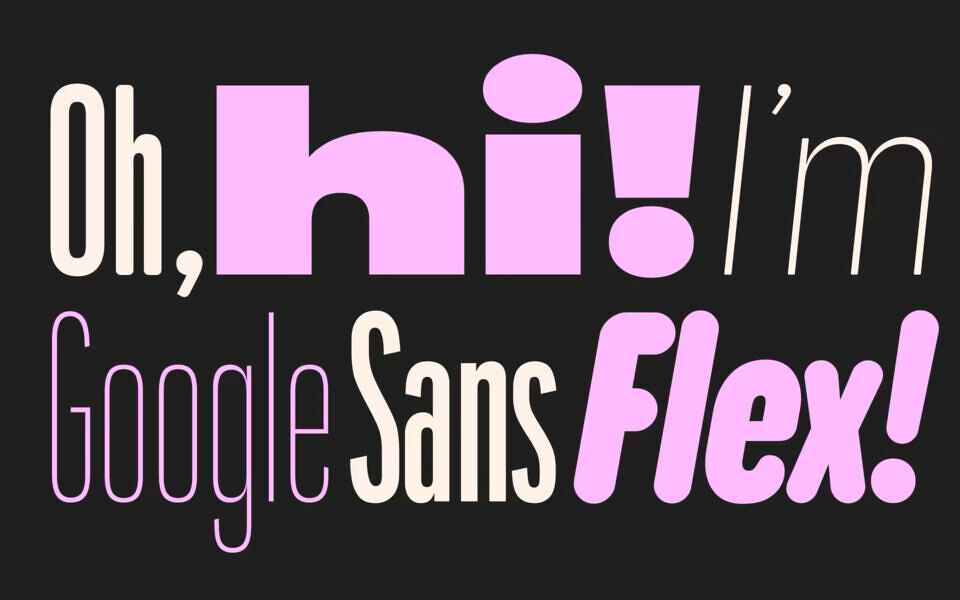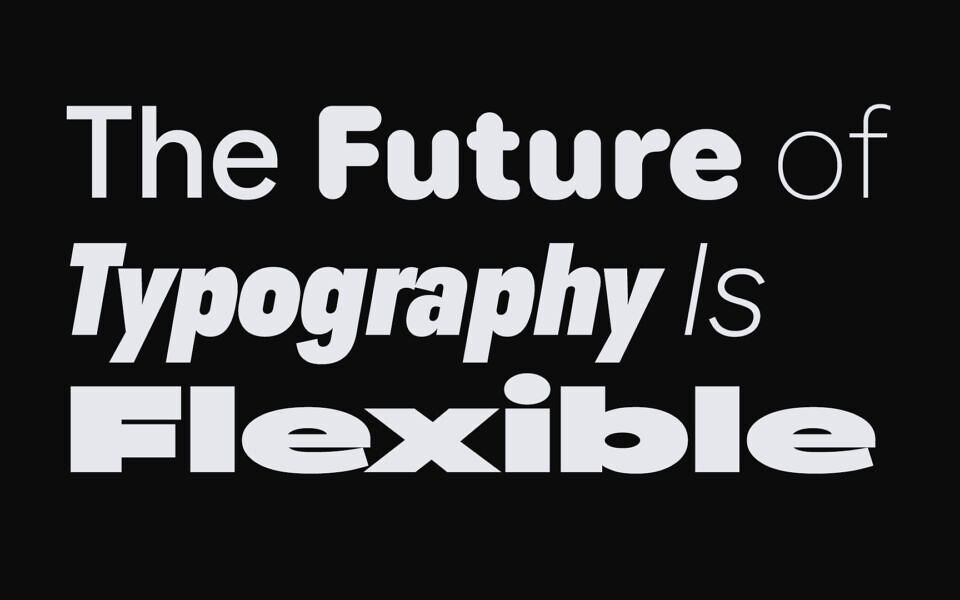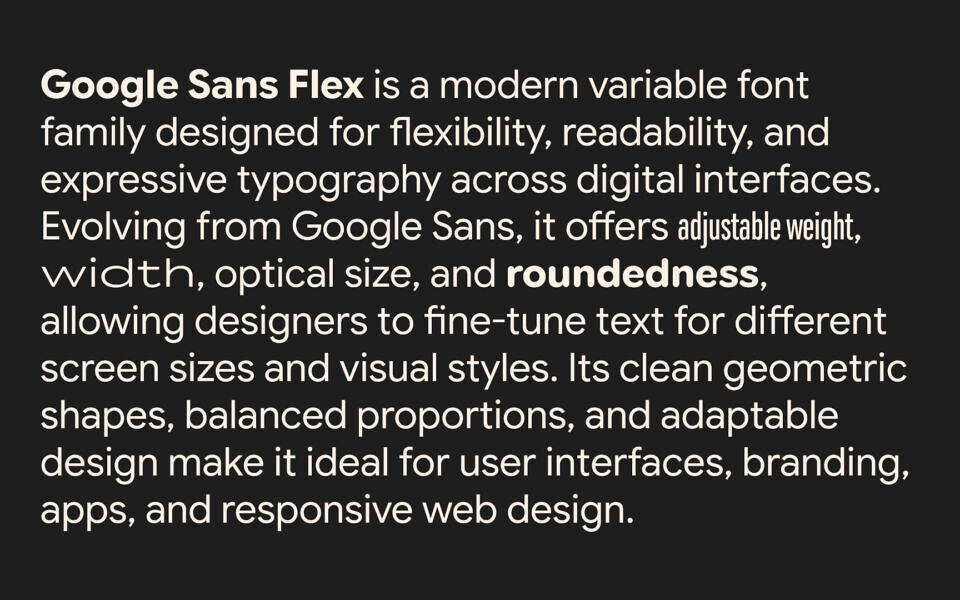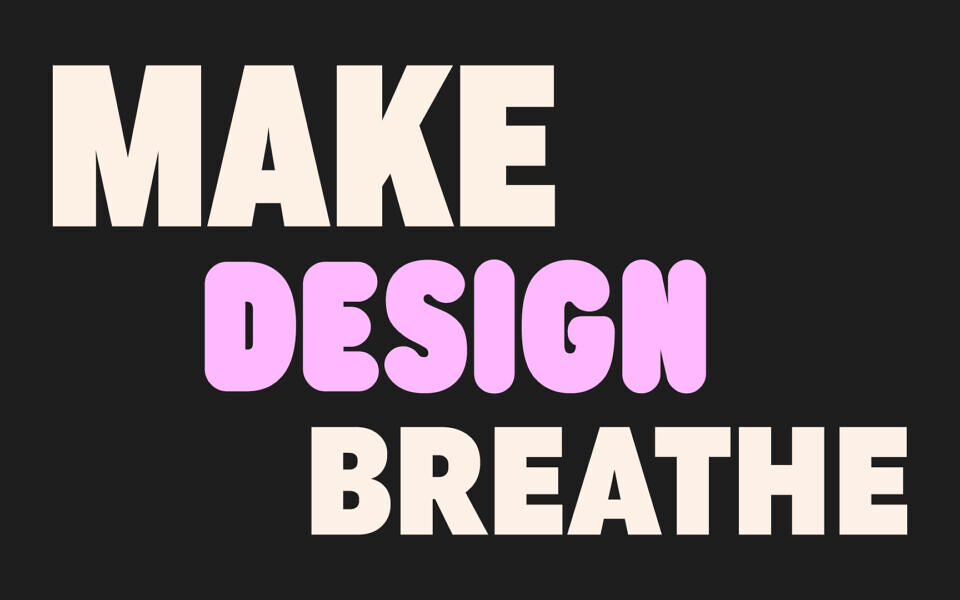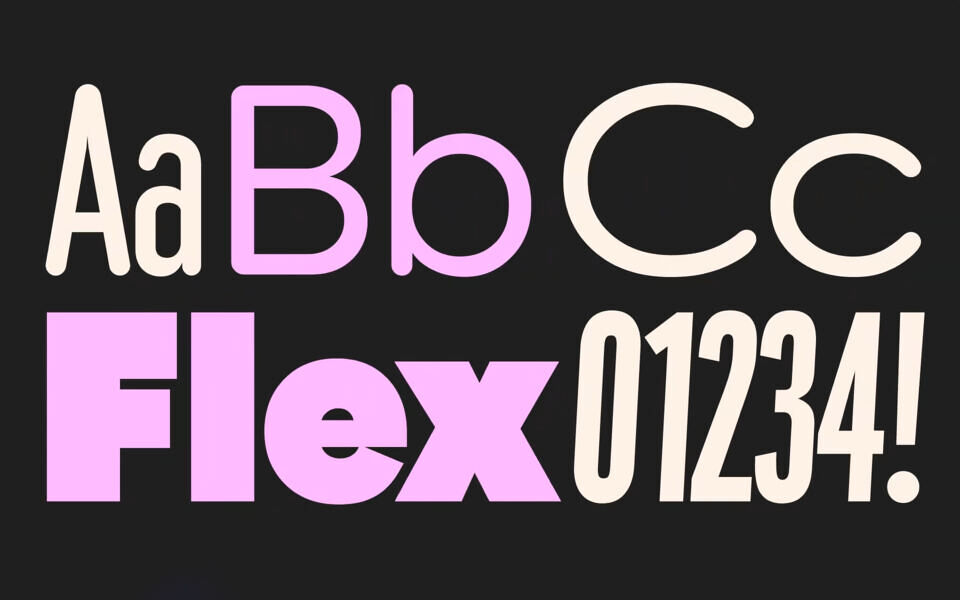
Google Sans Flex Font Family
Google Sans Flex is the next generation of Google’s brand typeface. Designed as an extremely flexible variable font, it introduces variable axes for weight, width, optical size, slant, as well as an axis for rounded terminals.
Evolving from “Google Sans”, Google Sans Flex is a remarkable variable font family that redefines digital typography. By combining infinite weights, widths, and optical sizes into a single, highly optimized file, it guarantees unmatched versatility and blazing-fast load times. Its clean, geometric aesthetics ensure pristine legibility across any screen. Perfect for crafting responsive user interfaces or dynamic web layouts, this typeface provides the ultimate scalable solution for modern digital design.